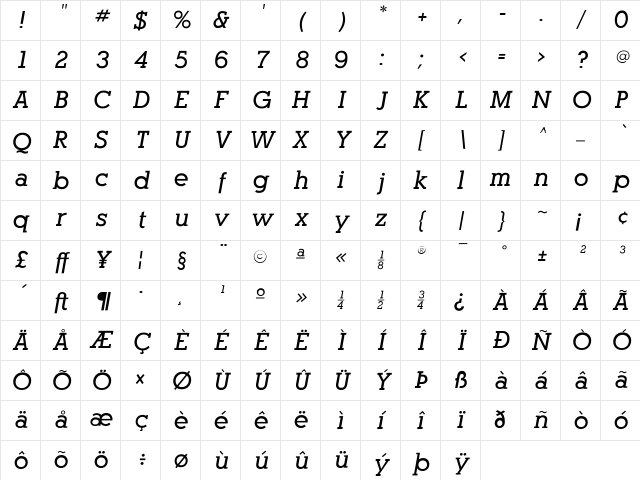
AlexandriaFLF Bold Italic
Design Context for AlexandriaFLF
AlexandriaFLF is a composed and adaptable typeface that performs quietly and consistently across a wide range of design contexts. The slanted form adds forward momentum and visual energy. Its bold stroke weight gives it real presence on the page.
Pro Tip: Use AlexandriaFLF for emphasis, pull quotes, and subheadings where its slanted energy can add rhythm to the layout.